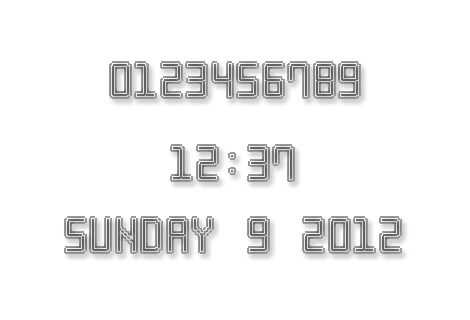
Neon Pixel-7 Czcionka
Neon Pixel-7 by Style-7 is a free digital display font with tall, squared capitals and a sharply engineered outline. The repeated inner channels, clipped corners, and open joins suggest neon tubing translated into an early computer-game aesthetic.
Retro arcade audiences are its clearest match. Game title cards, electronic music posters, nightclub flyers, and tech-themed packaging can use the lettering as both a readable name and a circuit-like piece of brand imagery.